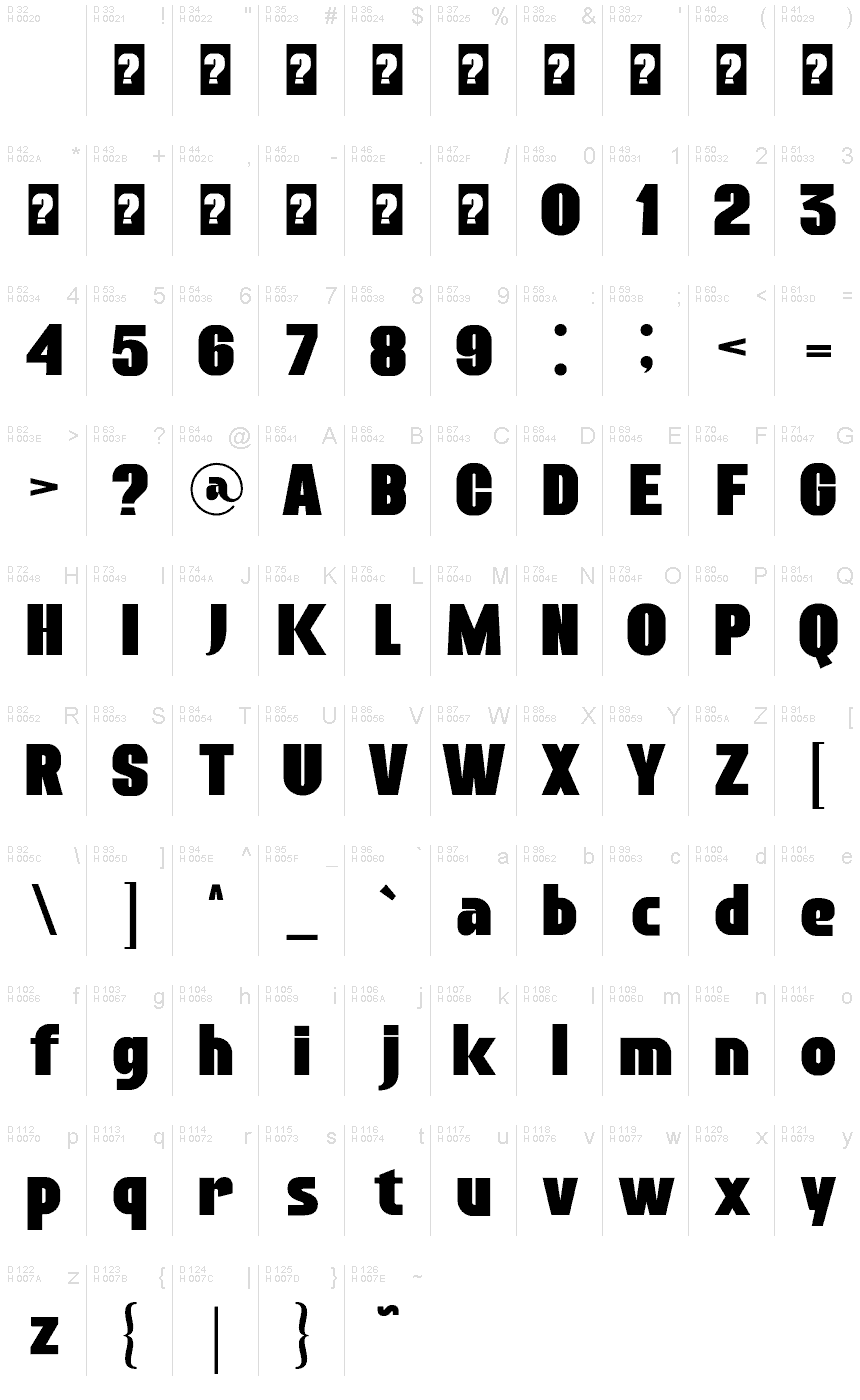
Creatball
Creatball font by Ffeeaarr is a structured bold sans serif typeface made of entirely disconnected characters and letters. Designed with geometric shapes and to have a strong modernist effect, the font takes on an industrial style that looks impactful in all its use cases.
Creatball is a bold font.